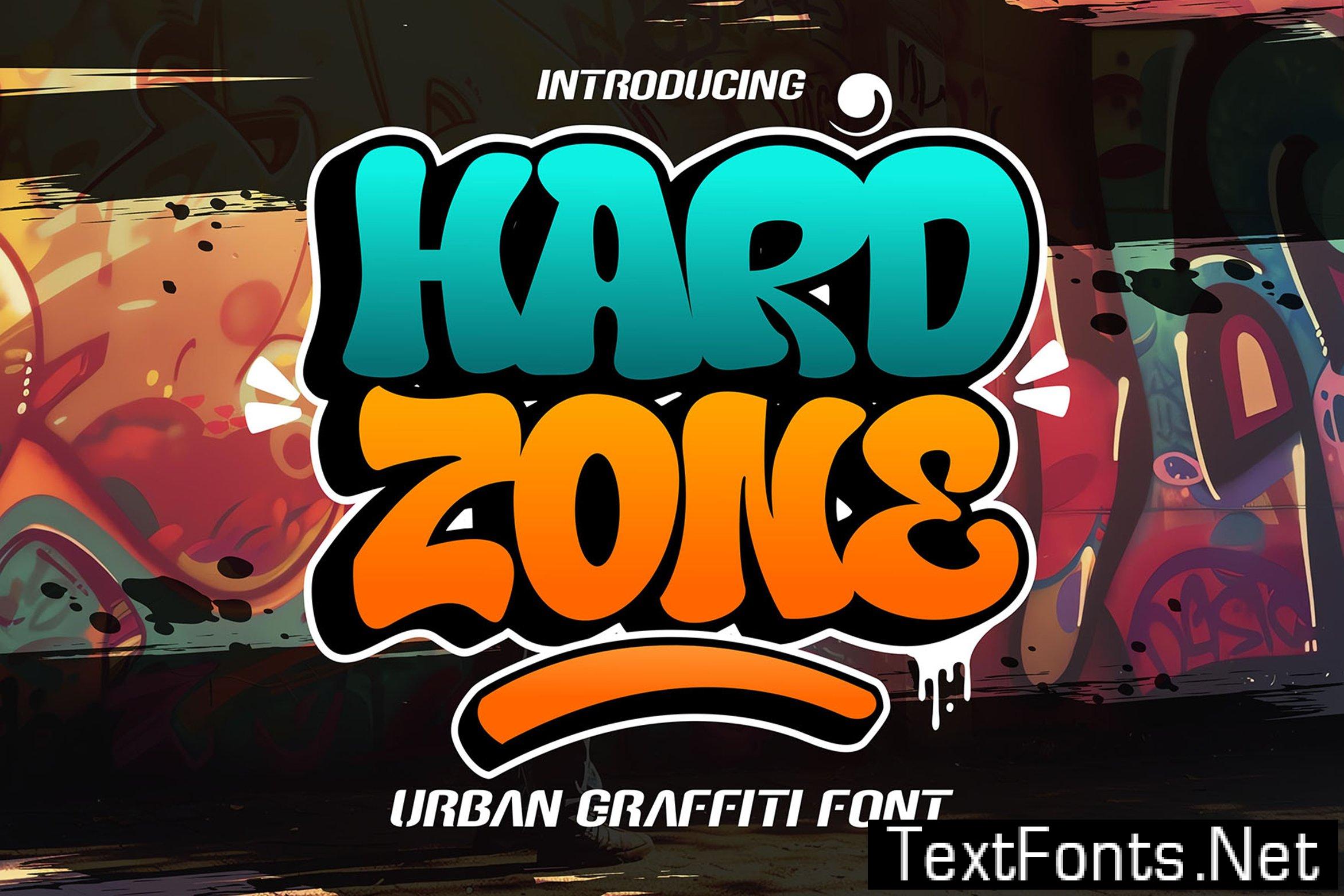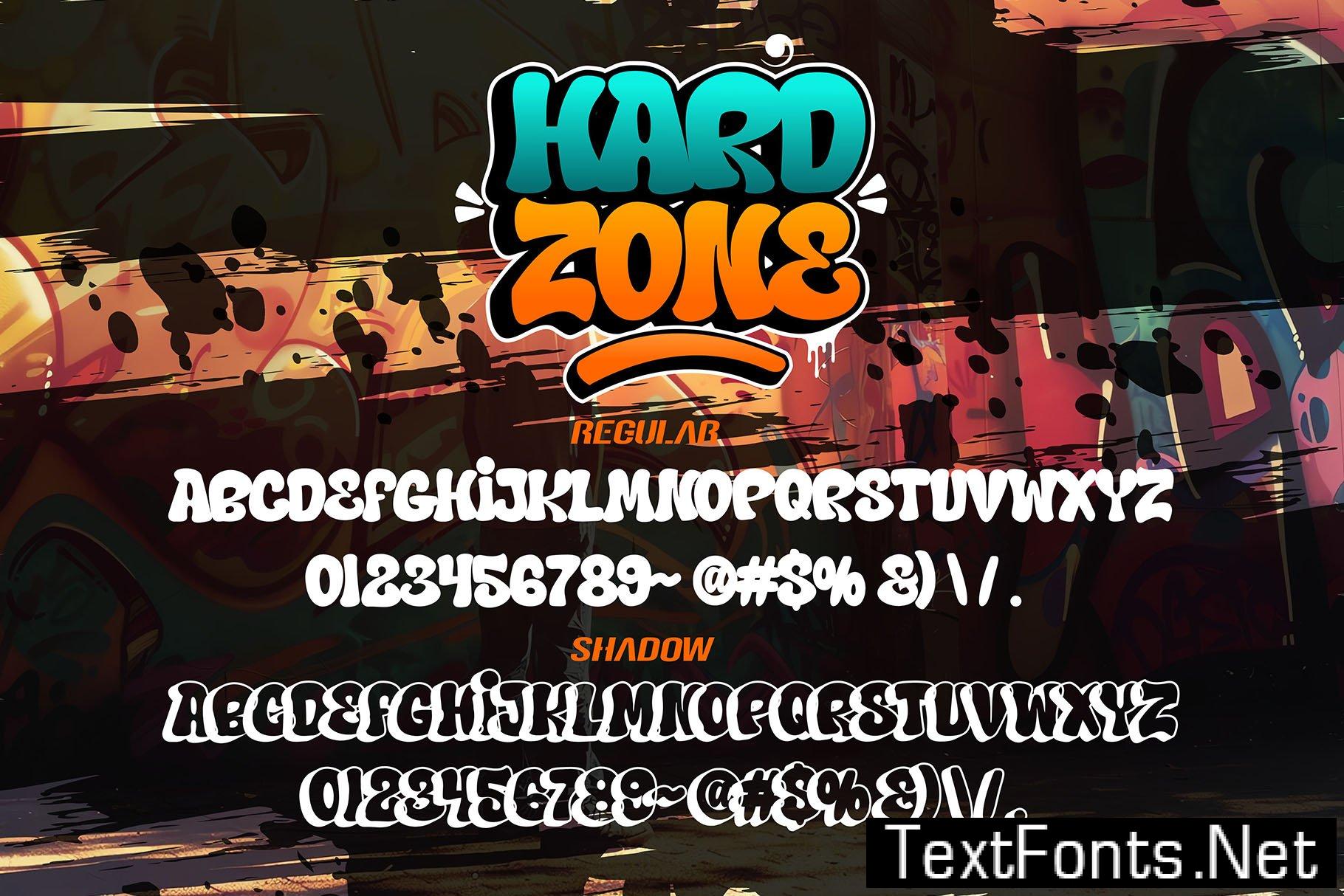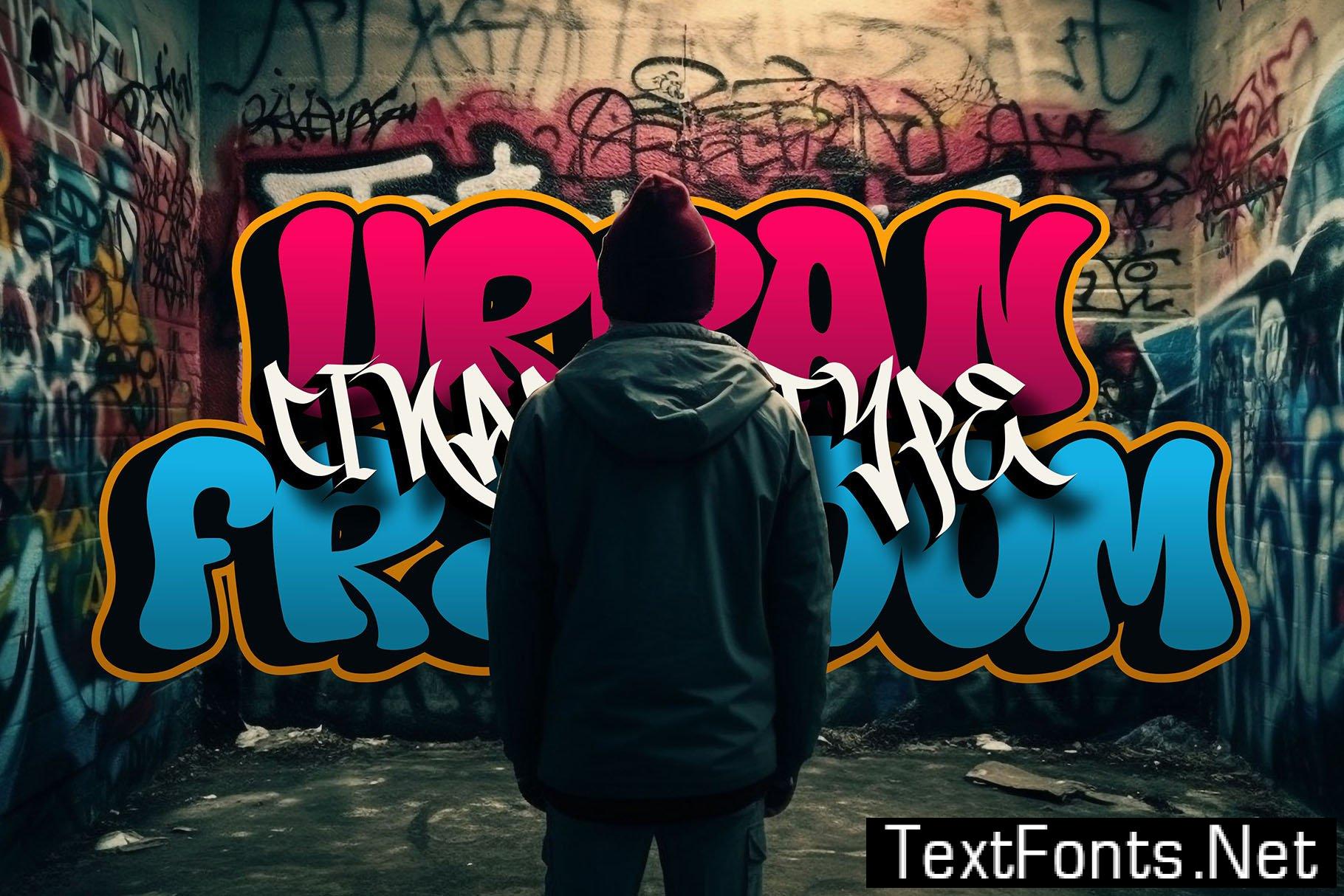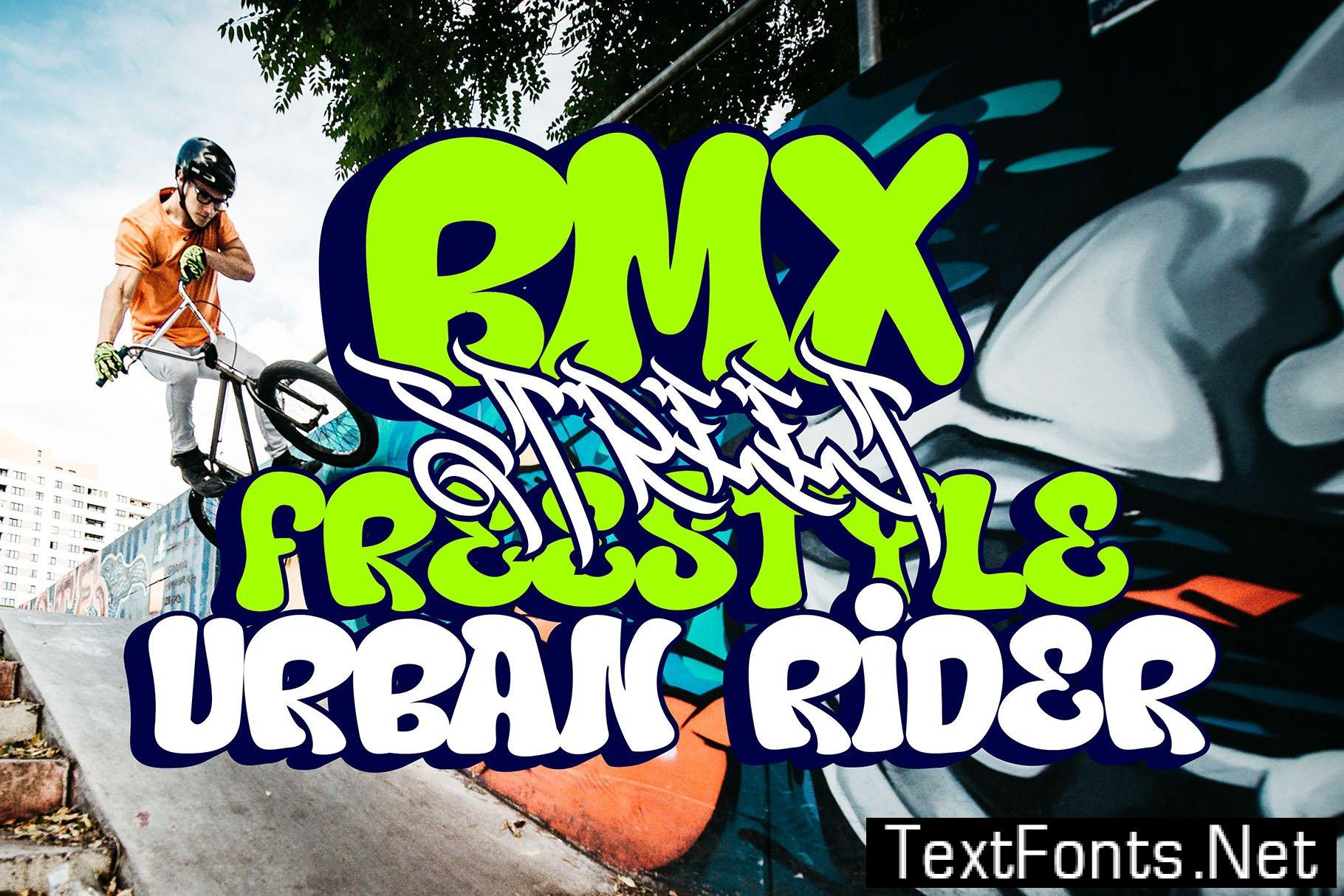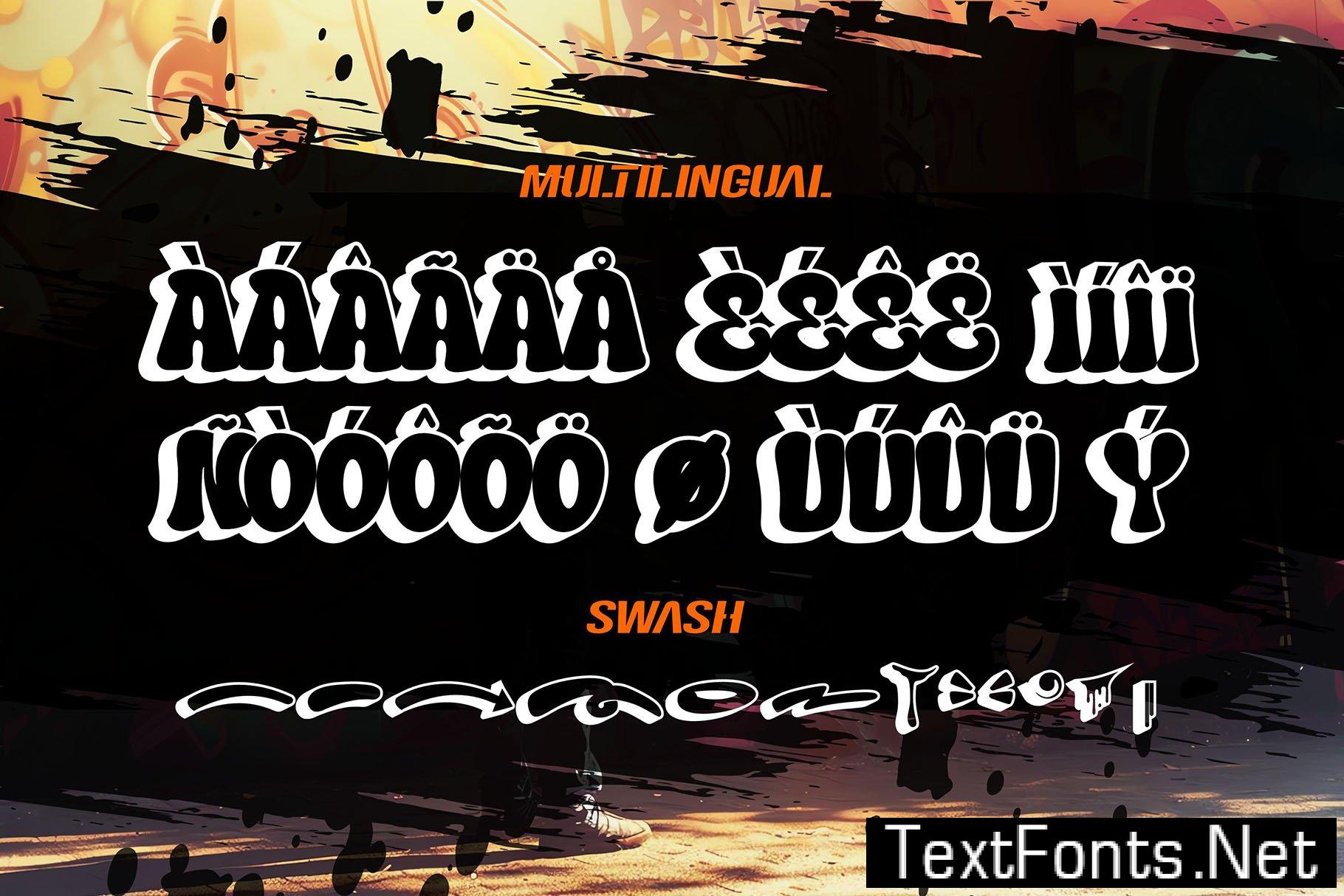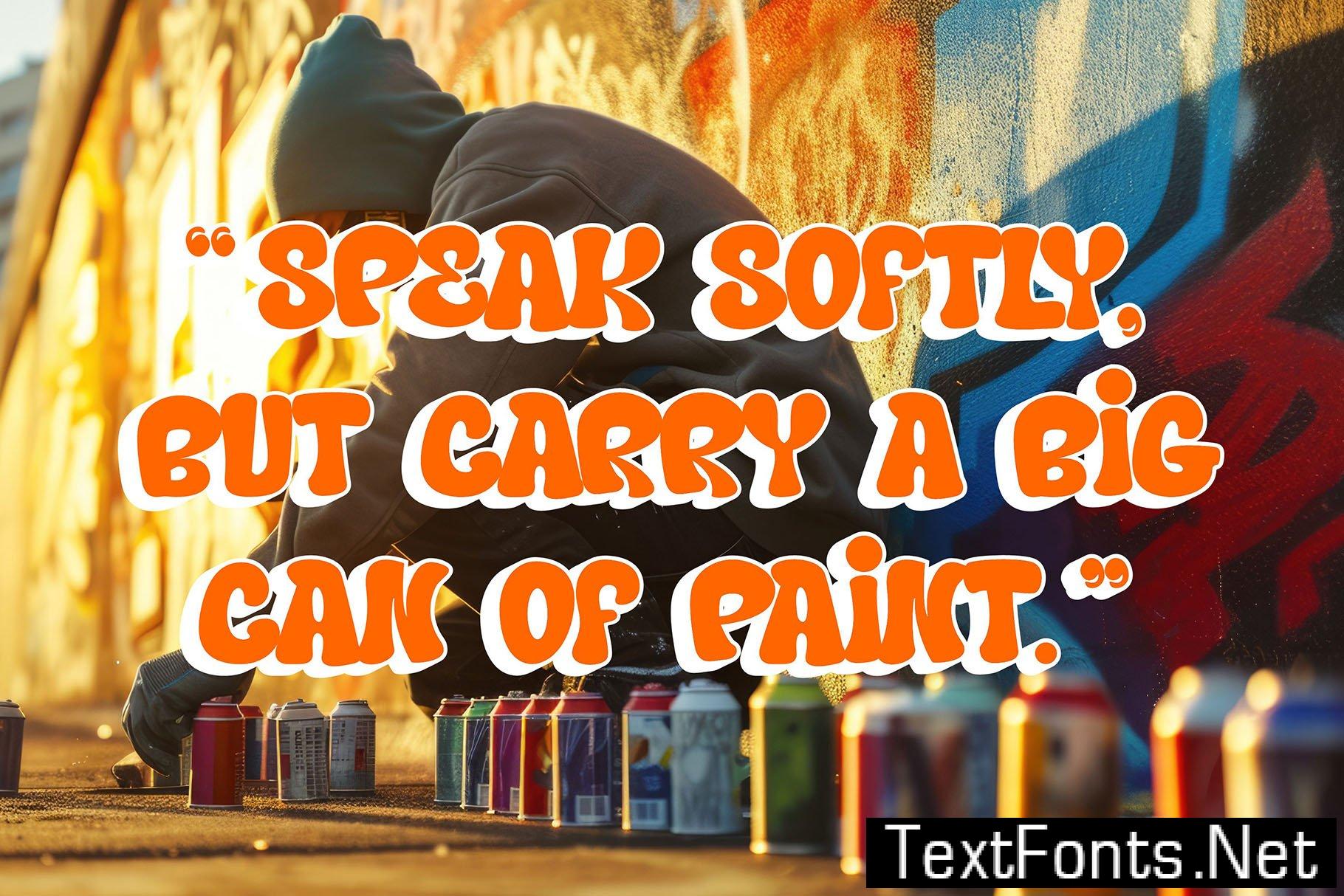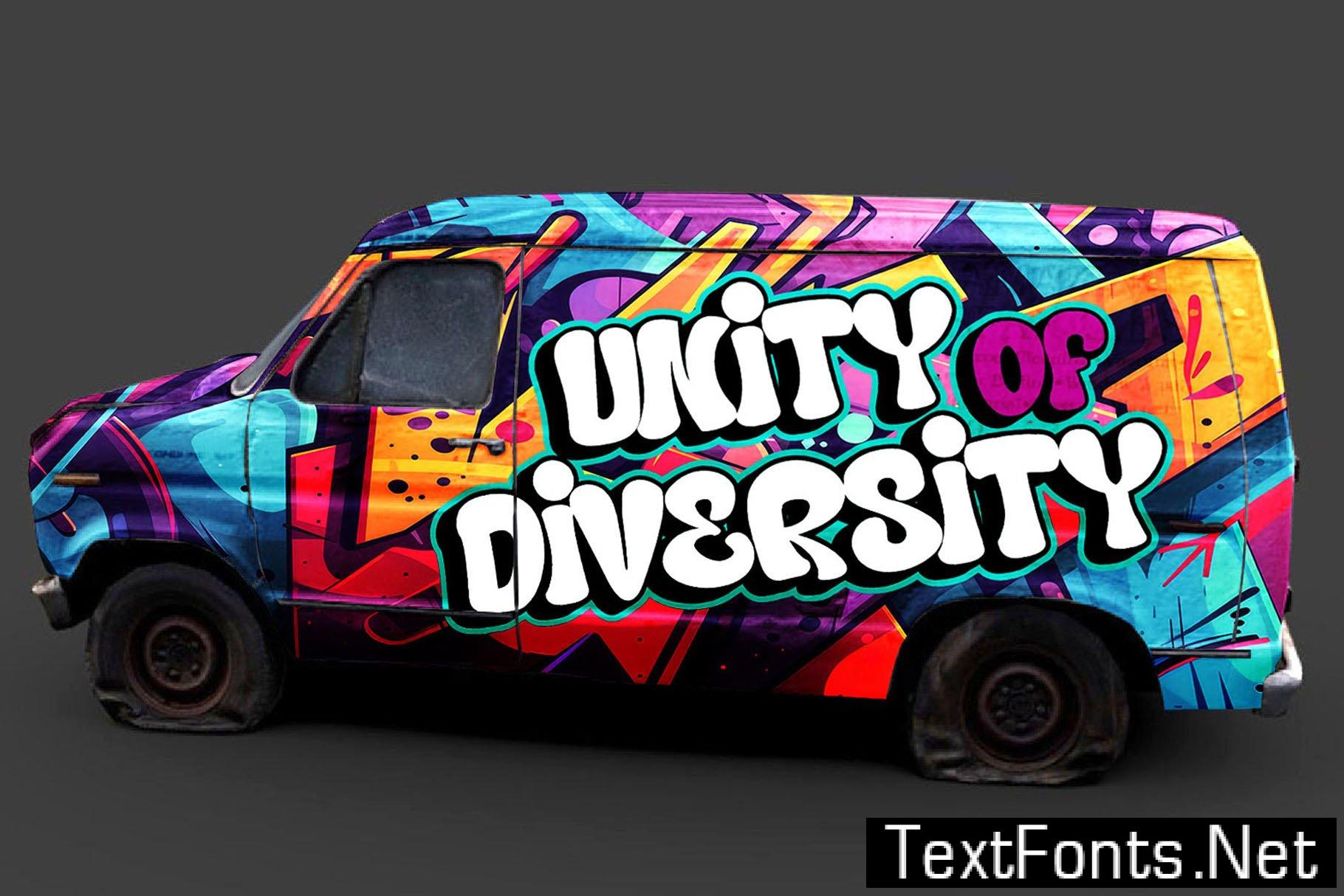
Hard Zone – Shadowed Graffiti Font D4MQJA3
**Hard Zone** is a 3D layered graffiti font featuring regular letters and swashes, with shadows included on each character. This font brings a dynamic and robust look to your designs, perfect for street-themed projects, bold headlines, and eye-catching advertisements. The intricate layering and shadow effects add depth and a three-dimensional appearance, enhancing the visual impact and making your text stand out. Hard Zone’s versatility and edgy style make it an excellent choice for any project that demands a powerful and urban aesthetic.